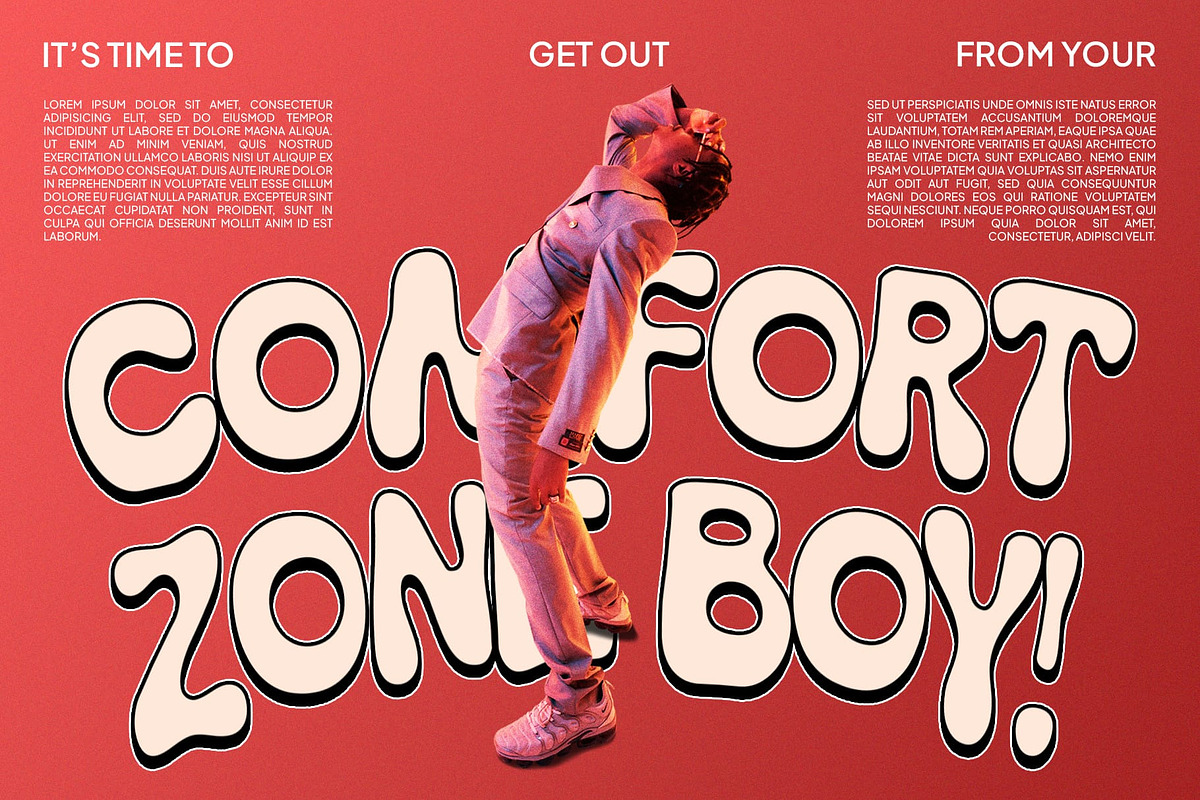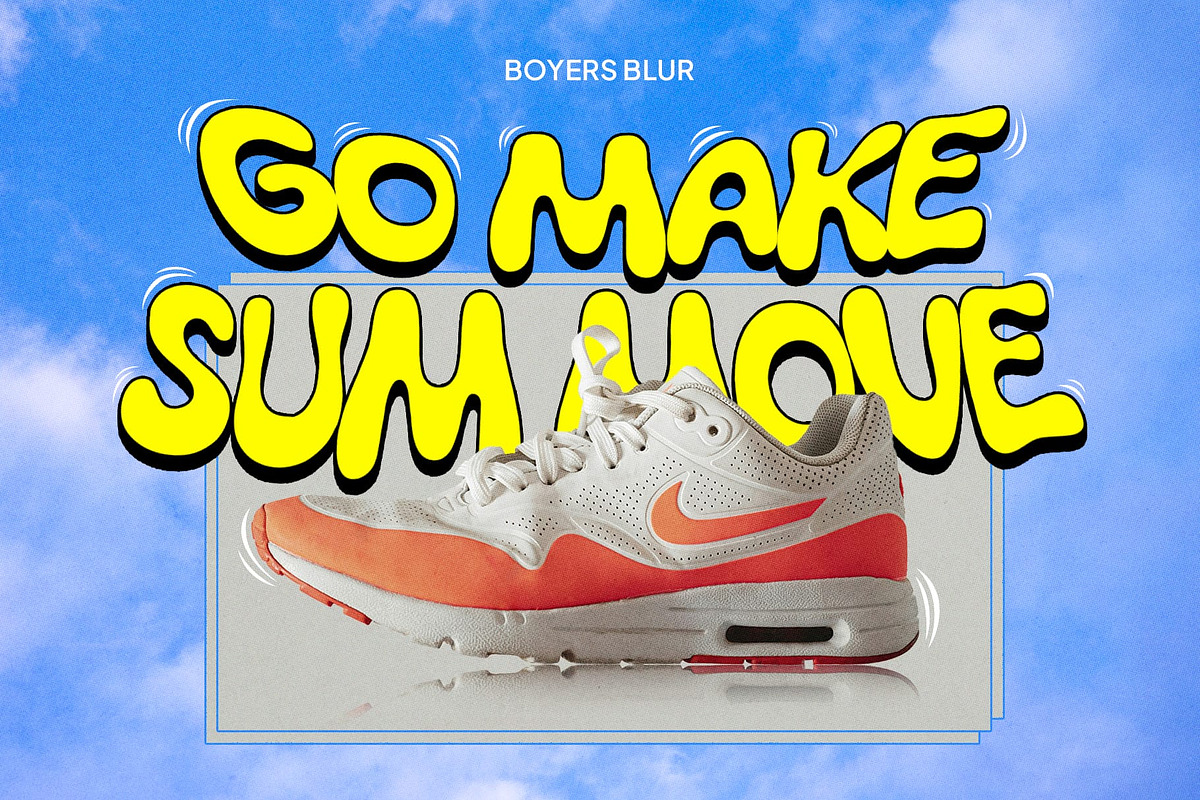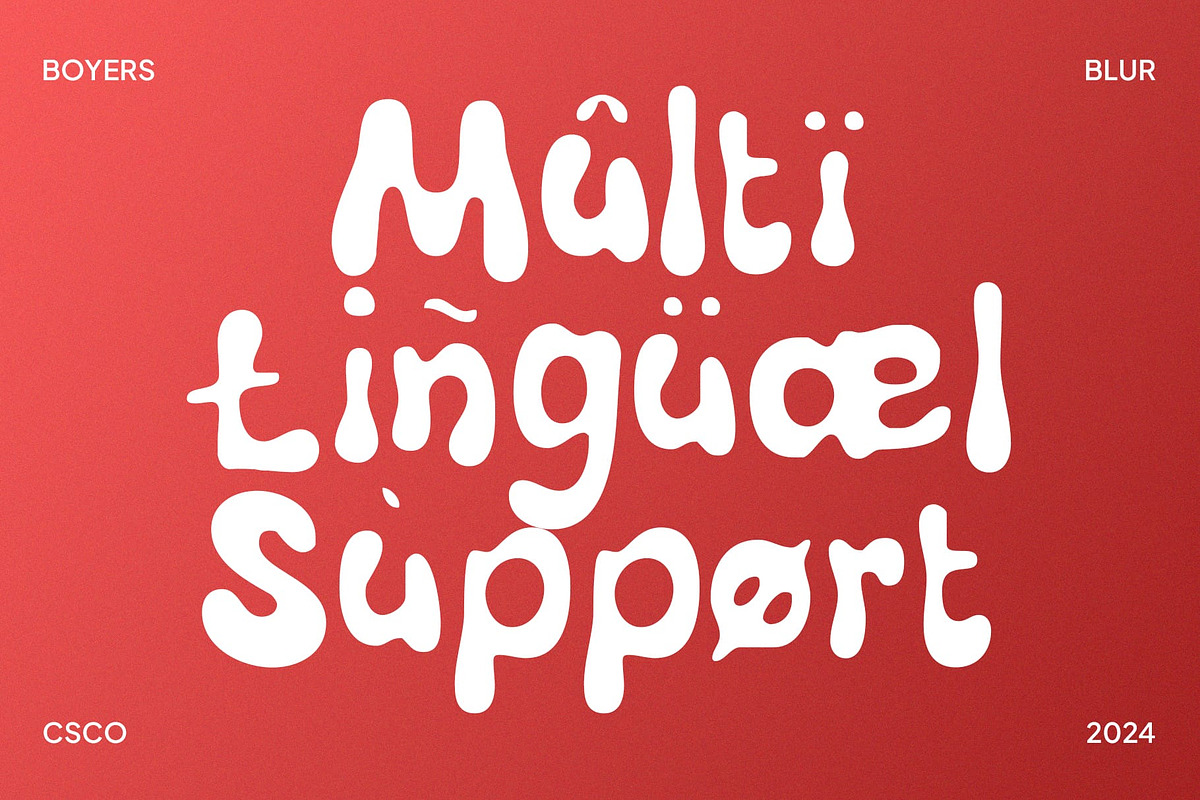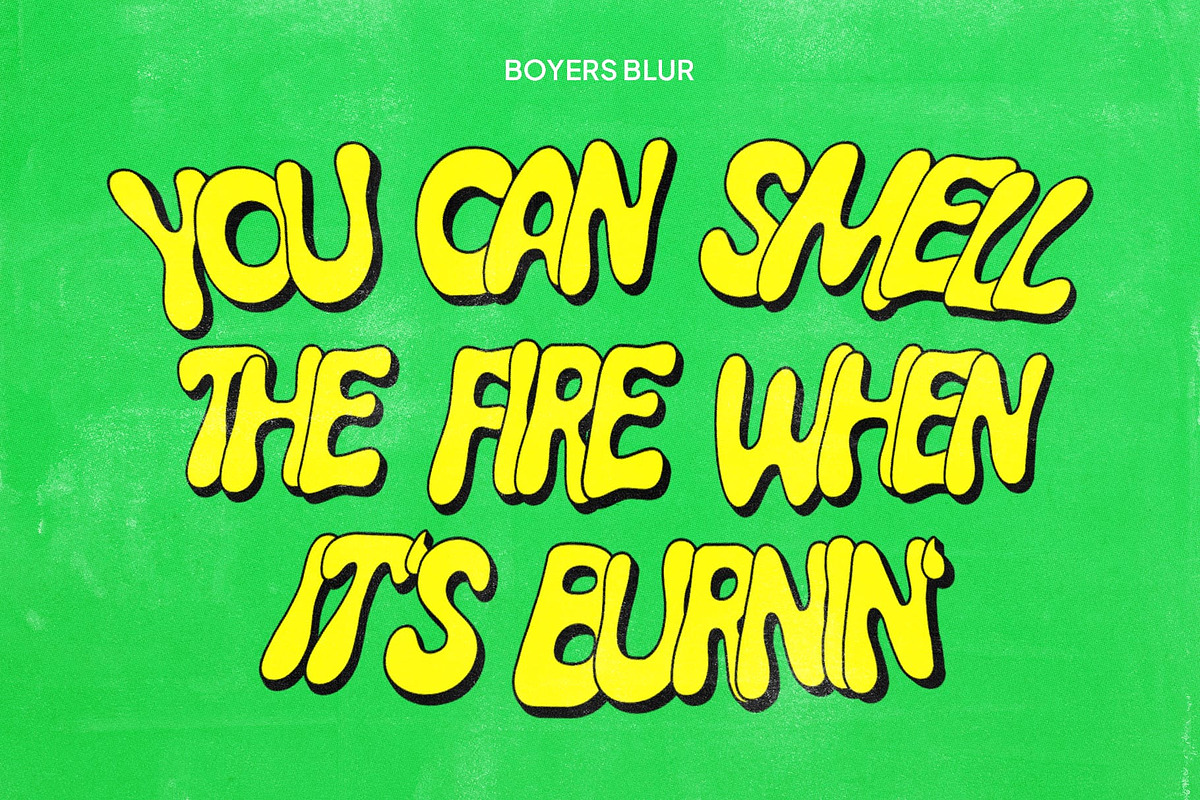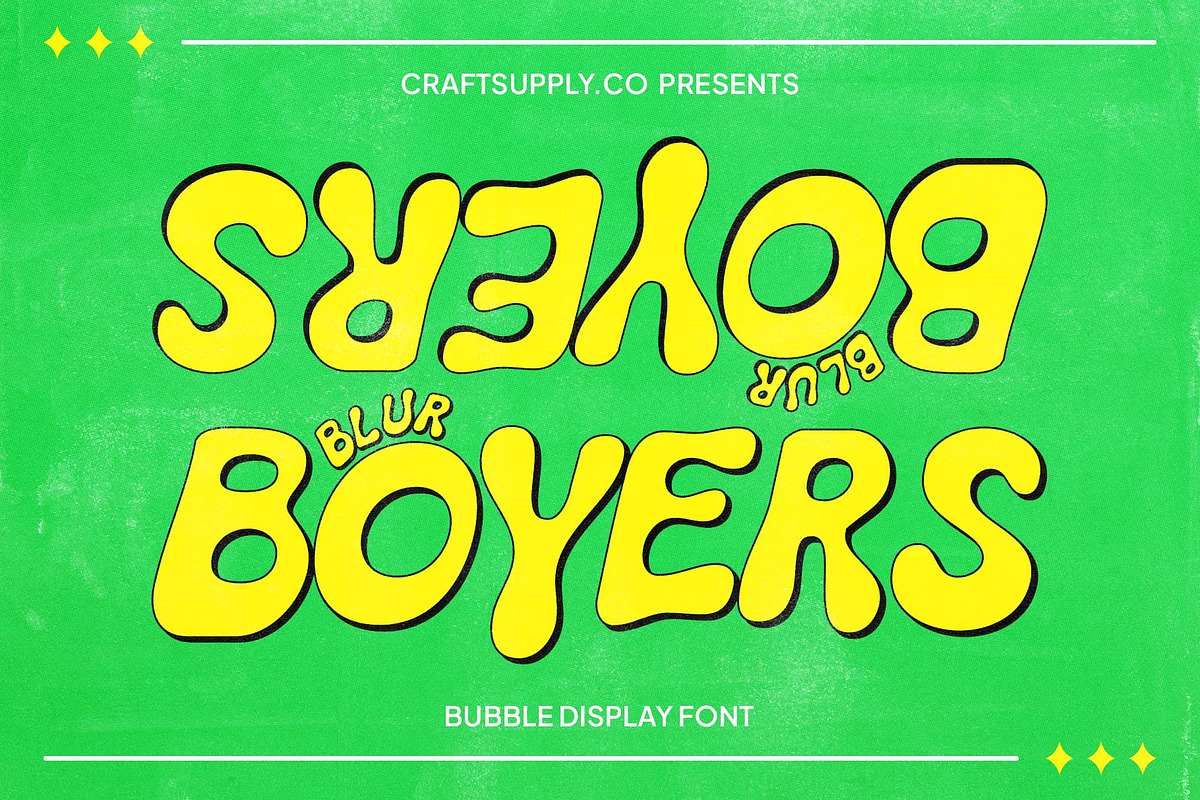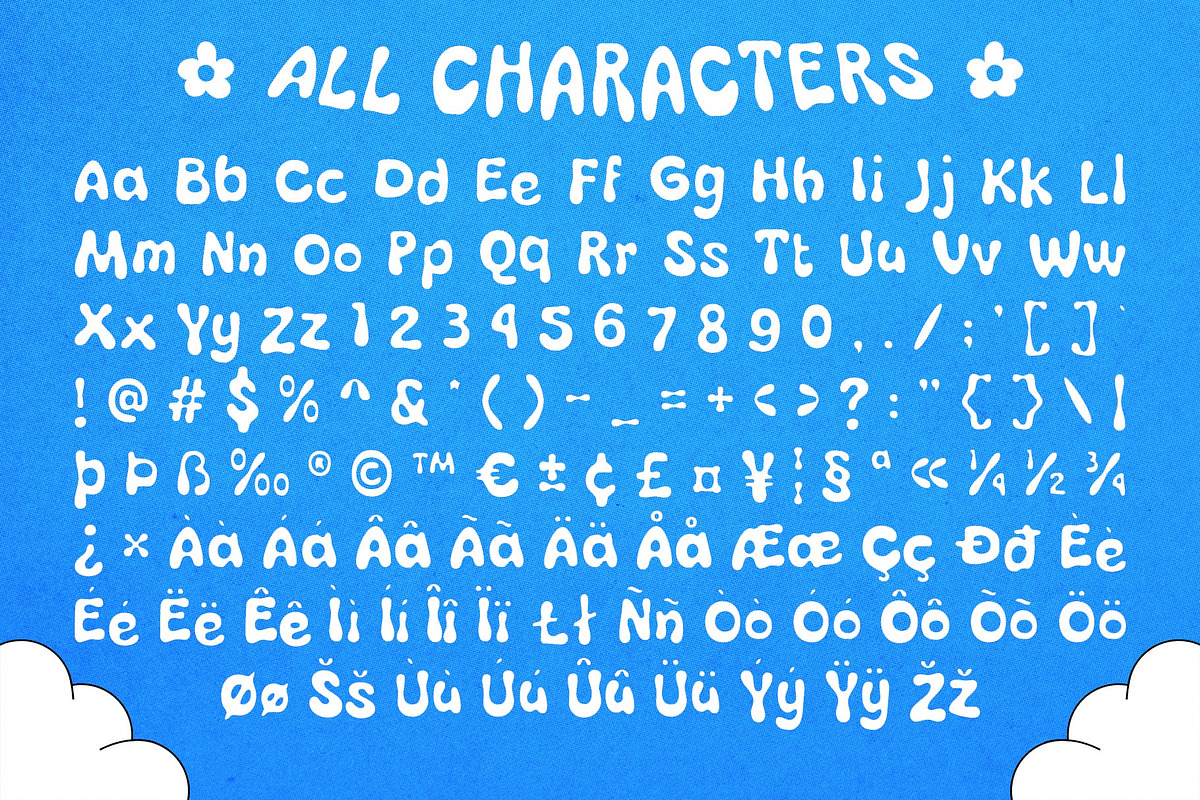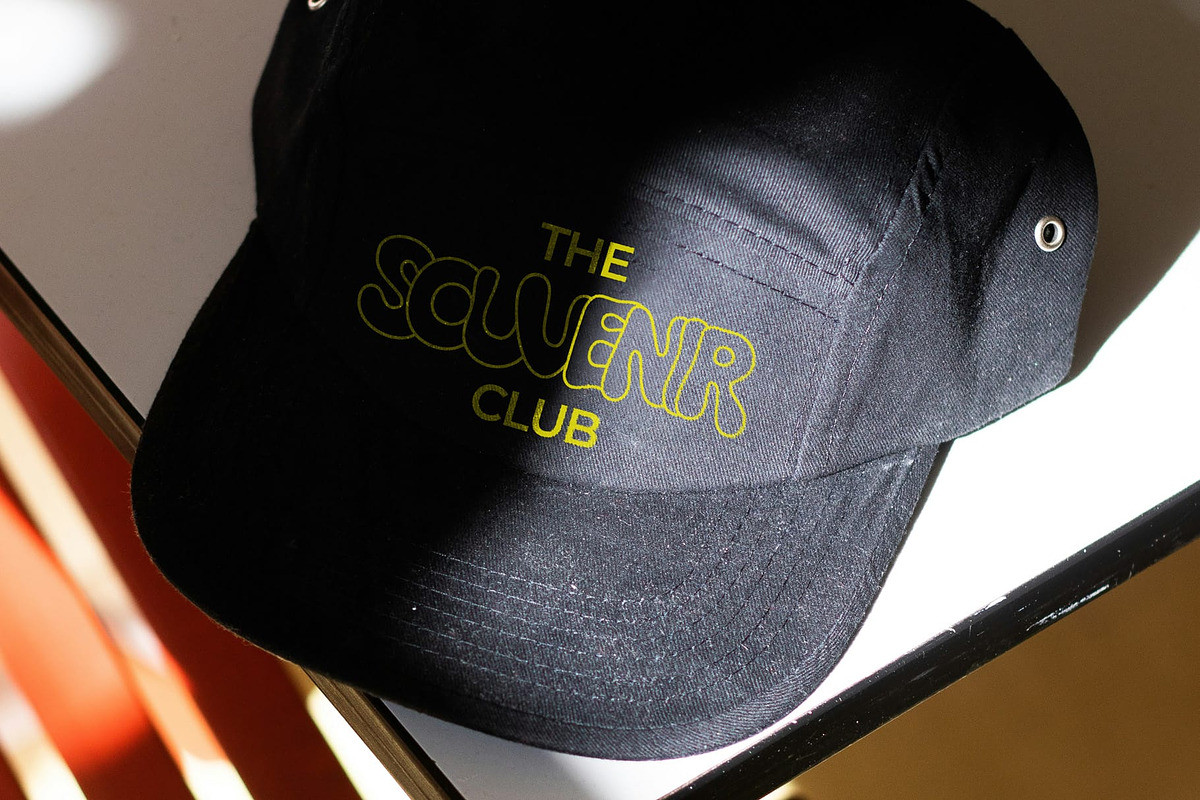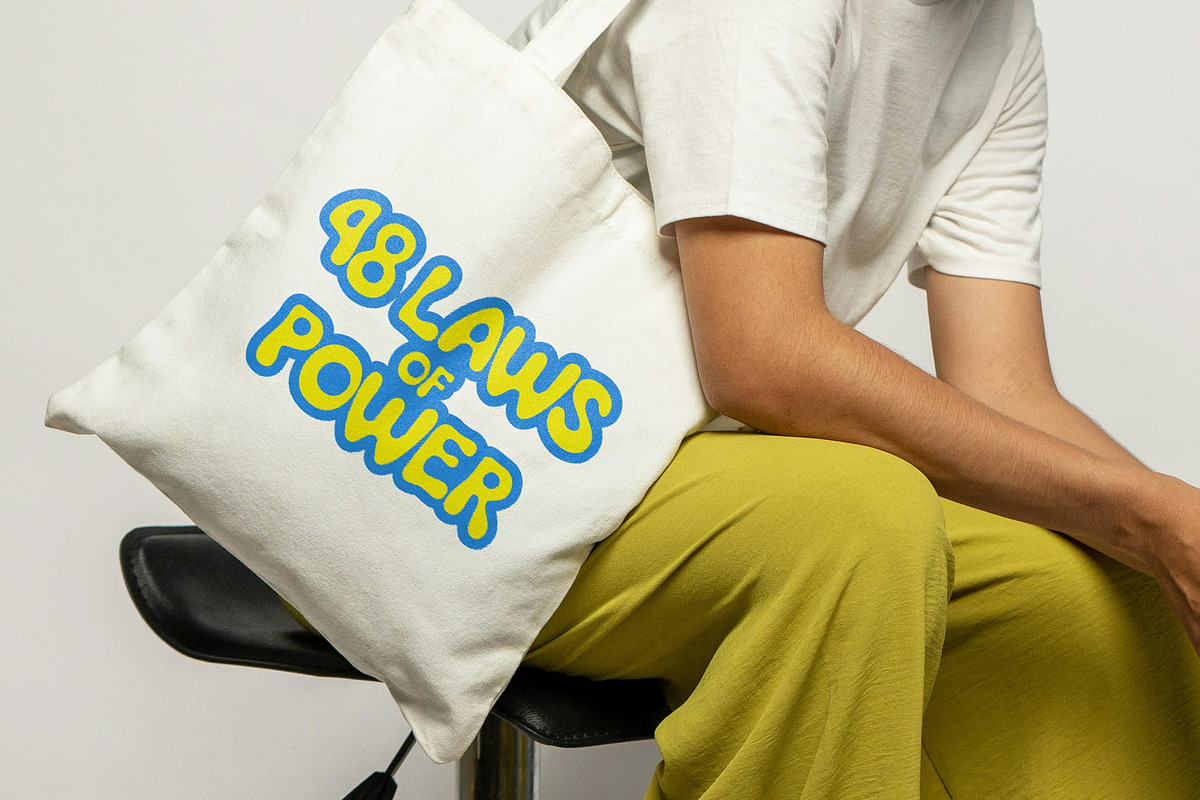
Boyers Blur
Boyers Blur: Playful Display Font with Bubble Shapes
Creativity, Uniqueness, and Joy Boyers Blur is a display font with bubble shapes, a funky feel, and a cute impression, along with a blur effect. Perfect for designs aiming to highlight creativity, uniqueness, and joy, this font adds a cheerful and distinctive look to your design, creating a fun and memorable impression.
Ideal for Cheerful Designs Perfect for headlines, banners, and other display purposes, Boyers Blur ensures your message is both seen and remembered. Its playful bubble shapes, funky feel, and engaging blur effect make it a delightful choice for designs seeking to create a cheerful and distinctive impression.
Versatile and Engaging Despite its playful appearance, Boyers Blur remains versatile and engaging. Its display font format makes it suitable for a wide range of projects, from branding to digital designs, where a font that stands out is essential for making a statement.
Perfect for Adding a Playful Touch Boyers Blur is ideal for projects requiring a font with a playful touch. Whether you’re designing a poster, logo, or website, this font will undoubtedly add a distinct and memorable element to your designs.